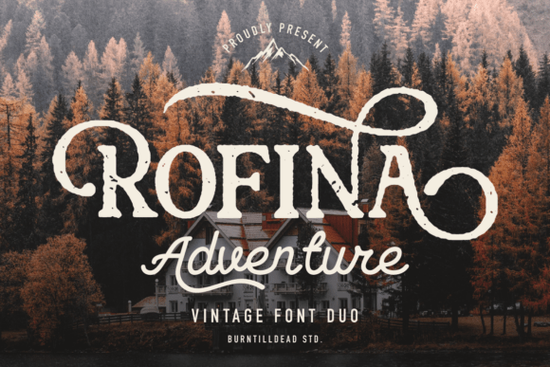
Looking for a font pairing that feels both polished and personal? Rofina is a font duo that brings together a strong serif and a soft, flowing script in one package. It's built for designers who want contrast without clashing structured enough for professional layouts, expressive enough to feel human. Whether you're designing wedding invitations, branding materials, or social media graphics, this duo gives you options without needing to hunt for a matching pair.
What Makes This Serif and Script Duo Different?
Most font pairings require you to buy two separate fonts and hope they work well together. Rofina solves that problem by packaging a serif and script font designed from the start to complement each other.
The serif side has a confident, clean look. It works well for headlines, product names, and anywhere you need text to feel solid and readable. The script side adds warmth and personality think handwritten notes, quotes, or accent text that draws the eye.
When you put them side by side, the contrast feels natural. You don't get that awkward mismatch that happens when fonts fight for attention. Instead, the two styles balance each other out.
What About the Stamp Version?
Beyond the standard serif and script, Rofina includes a stamp-style version. This gives your text a slightly rough, textured look like something printed by hand or pressed with a rubber stamp.
This is especially useful for:
- Print-on-demand products like tote bags, mugs, and t-shirts where a handcrafted feel adds value
- Logo design for brands that want to look artisan or boutique
- Packaging design for small businesses selling handmade or organic products
- Social media posts that need to stand out from overly polished graphics
The stamp style is a simple way to add character without spending extra time on effects or textures in your design software.
Who Is This Font Best For?
This font duo works well across a range of projects. Here's who might find it especially useful:
- Wedding and event stationery designers the serif handles formal details while the script adds romance
- Small business owners creating their own branding, menus, or signage
- Print-on-demand sellers who need versatile typography for different product styles
- Bloggers and content creators looking for readable yet stylish text for graphics
- Crafters making SVG designs, greeting cards, or custom gifts
If you've been pairing fonts manually and struggling to find the right match, a well-designed duo like this saves time and guesswork.
How Does It Compare to Other Serif Fonts?
What sets Rofina apart is that it includes both the serif and the script in one package, along with the stamp style. You're getting three different vibes from a single download.
Practical Tips for Using Font Duos in Your Designs
- Use the serif for main text like headings, product titles, and body copy where readability matters most
- Reserve the script for accents a tagline, a name, a short phrase that needs personality
- Try the stamp version for designs where a handmade or vintage feel is the goal
- Don't overuse the script too much flowing text can be hard to read, especially at small sizes
- Keep contrast intentional let one style lead and the other support
Quick Checklist Before You Buy
Ask yourself these questions before purchasing:
- Do my current projects need both a serif and a script font?
- Would a stamp-style option add value to my product line or brand?
- Am I looking for a pairing that works without manual matching?
- Do I create designs for print-on-demand, invitations, or branding?
If you answered yes to most of these, the Rofina font duo is worth adding to your collection. It gives you flexibility across styles clean, expressive, or textured without needing multiple font purchases.